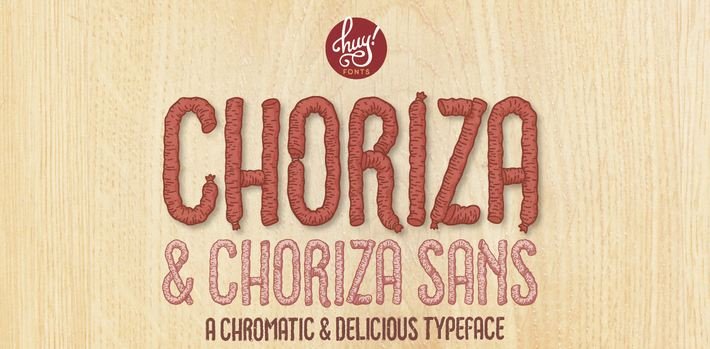
Choriza Font is a multilayered font and a kind of highly spiced Spanish sausage. With three layers you could color any salami, salchichen, sausage, wurst or pudding.
Chorizo additionally approaches burglar in Spanish, so it’s looks like forest font some form of typographical funny story approximately these days’ Spanish politicians.
This font as soon as designed to be loud, modern, and crowd-fascinating. Making the best for the layout of guide covers, posters, clothing, packaging, editorial work, promoting, and extra.
His ideal creation fuses a version sort of attributes. You need to trade its size, and it’s going to show you the 5-star advent following a uniform gauge and pivot.
Moreover, having a large language guide and keen functions it’s a sincerely best font for a few designing capabilities. Alongside those traces, people love to make use of this top-notch font that looks like fancy font in view of its simple to apply and easy to preserve moreover.
It’s miles a flexible font that looks like smoothie shoppe would artwork in physique replica in addition to titles, and there may be an understated beauty to it that we sincerely like,